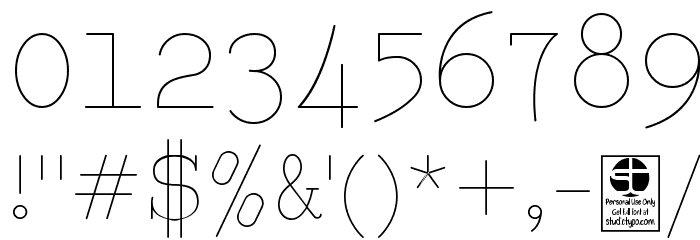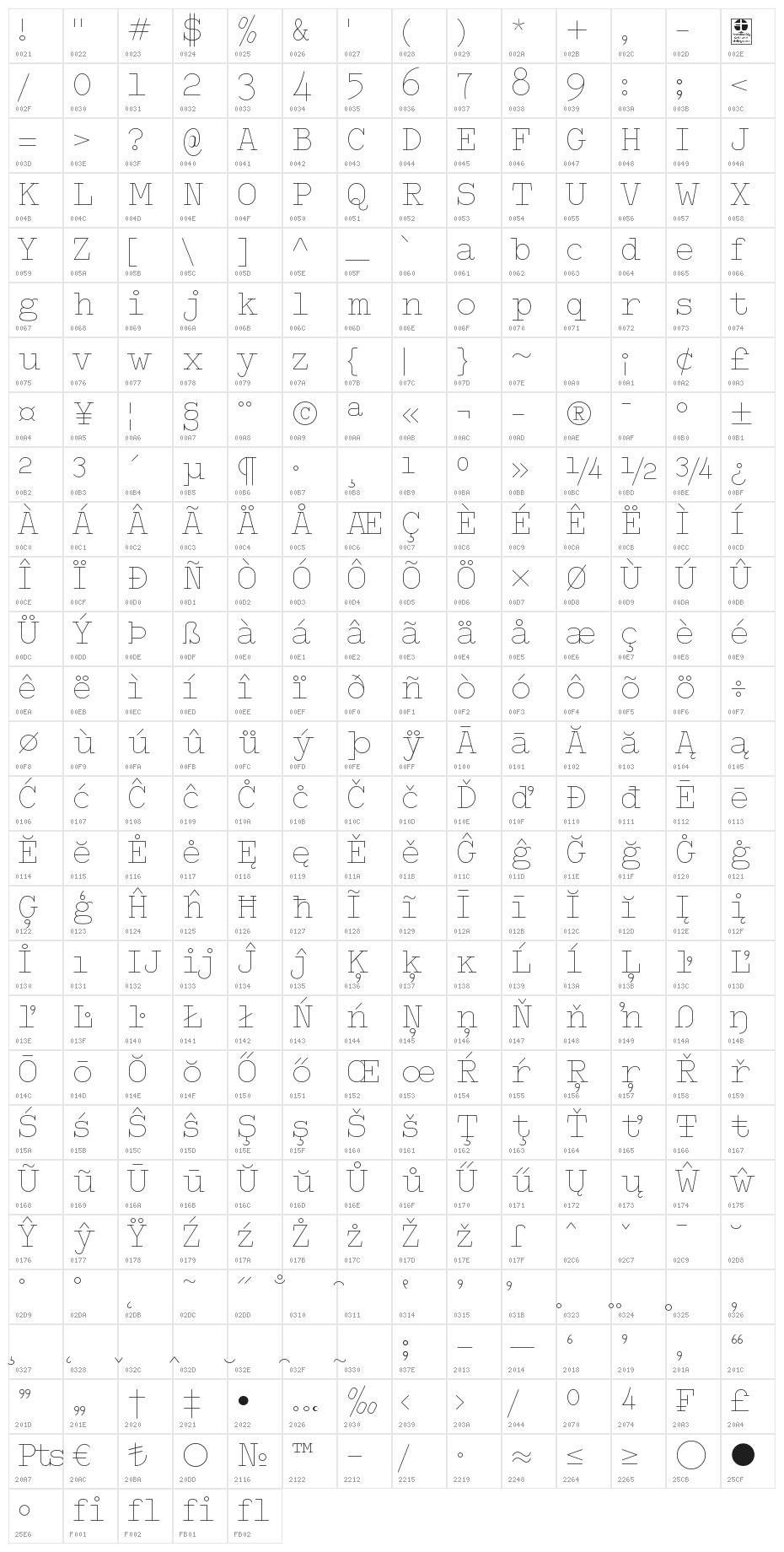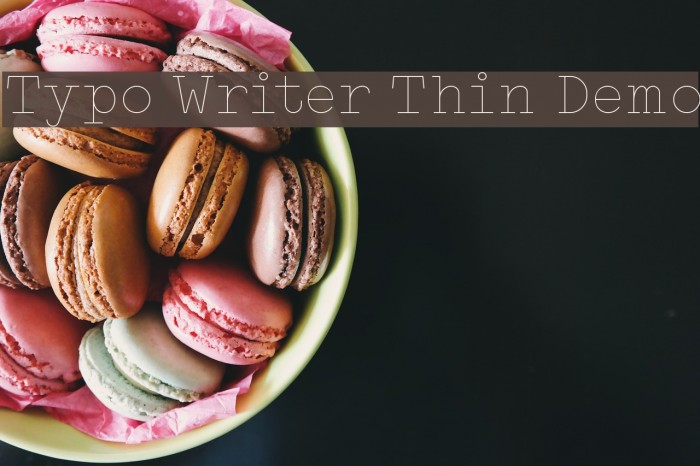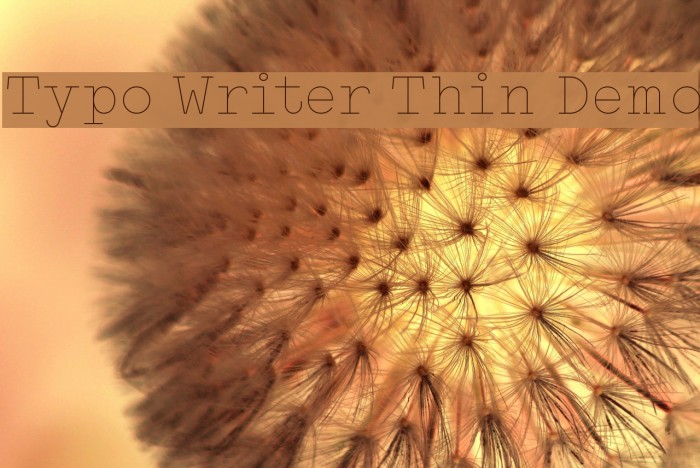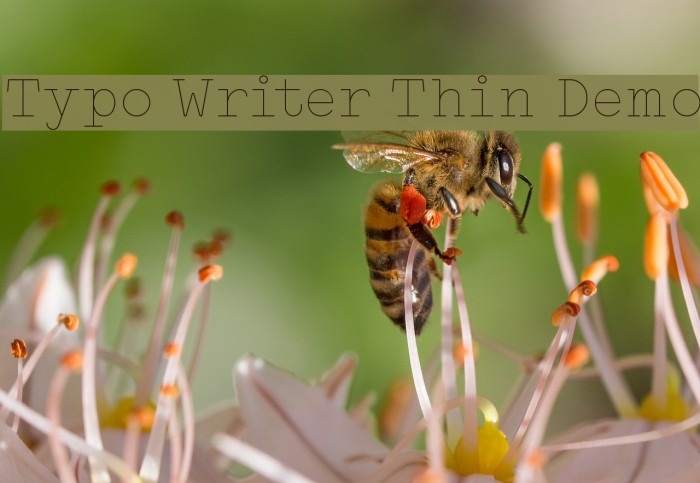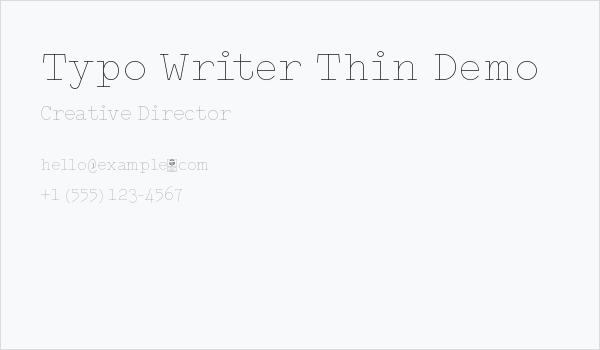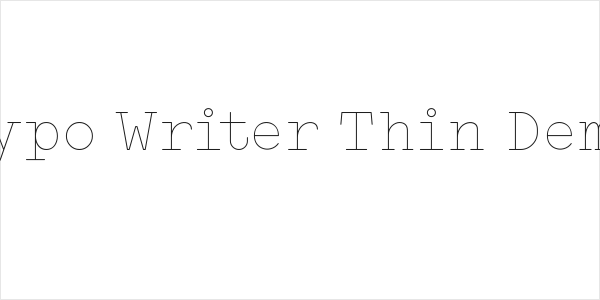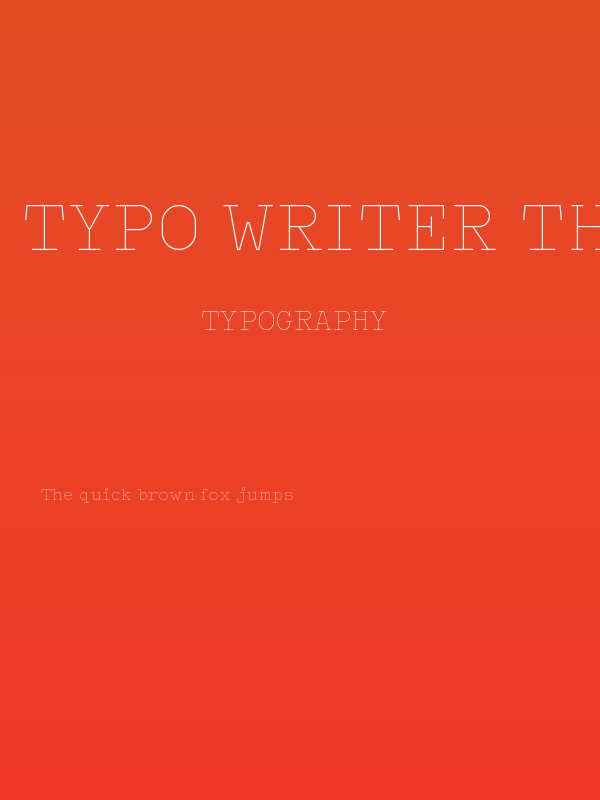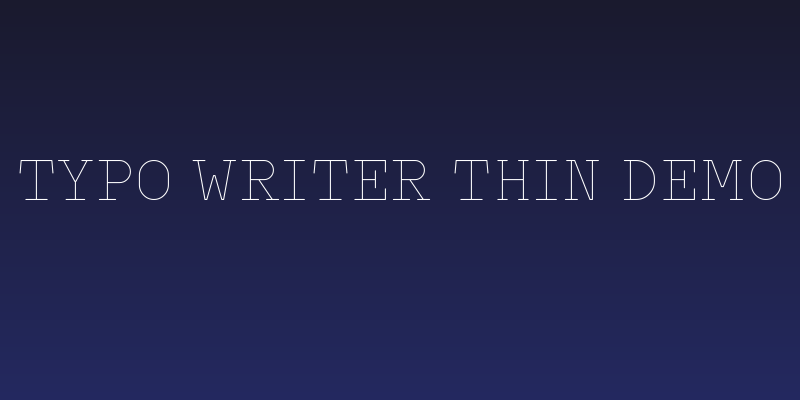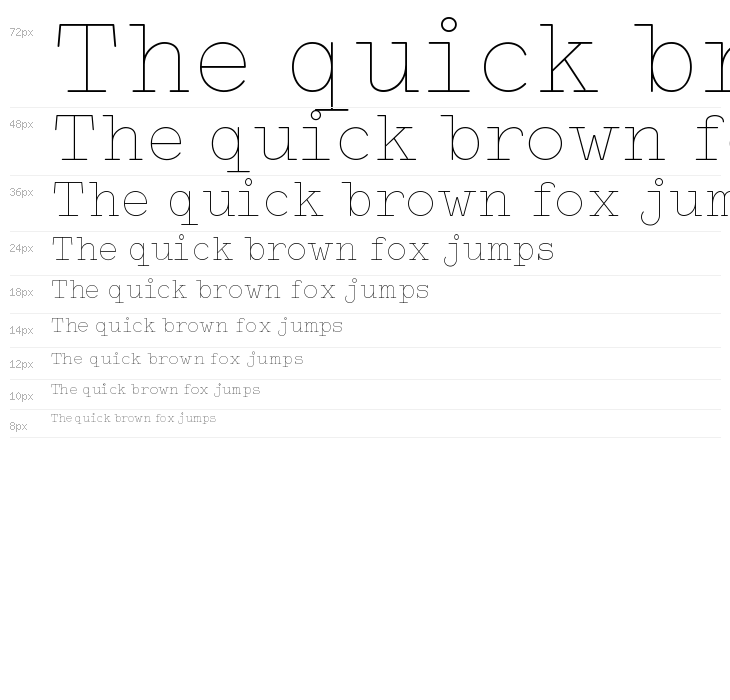
Typo Writer Thin Demo Font
Typo Writer Thin Demo Description
This font features a thin, monospaced design reminiscent of classic typewriter styles. Each character is evenly spaced, providing a clean and organized appearance. The strokes are consistent in thickness, contributing to a uniform look across both uppercase and lowercase letters. The font maintains a minimalist aesthetic, with simple, unadorned lines and a straightforward structure. Its clarity and precision make it suitable for projects requiring a vintage or retro feel, while still offering a modern twist with its sleek and slender form.
| Proposed Projects | Ideal for retro-themed designs, typewriter simulations, coding projects, or any creative work that benefits from a vintage aesthetic. |